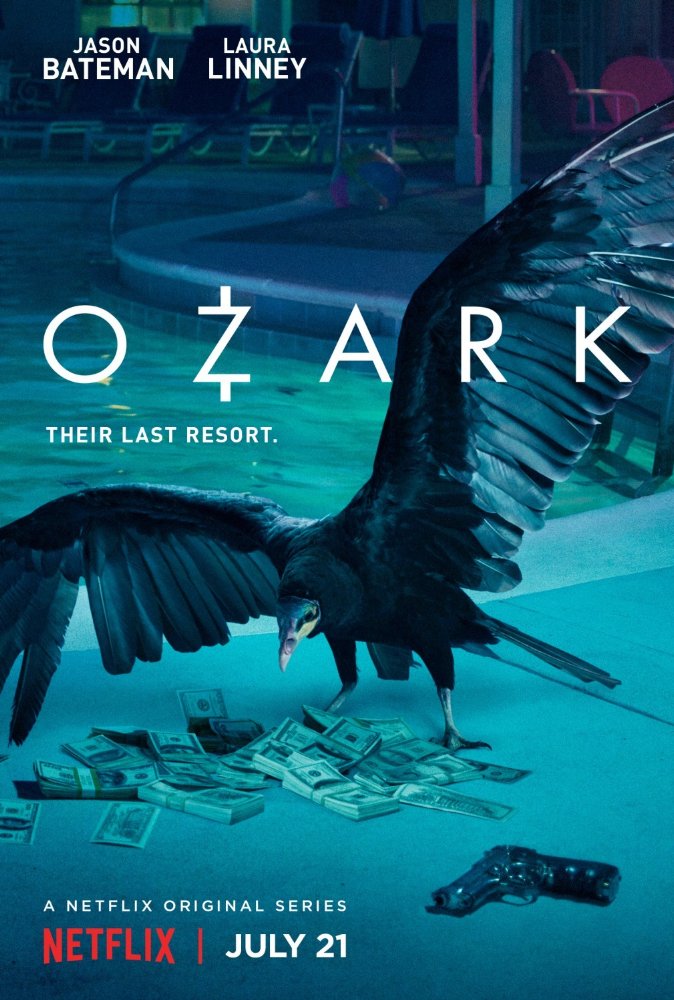
Ozark (TV Series) Font
FamilyOzark is a thrilling TV series that follows the story of a financial planner who is forced to relocate his family to the Ozarks and become entangled in a dangerous world of money laundering and crime to save their lives.
The title of the TV series "Ozark" features a font that resembles URW's Futura Book, a popular geometric sans-serif typeface designed by Paul Renner in 1927. However, it appears to have a modification on the letter "Z".